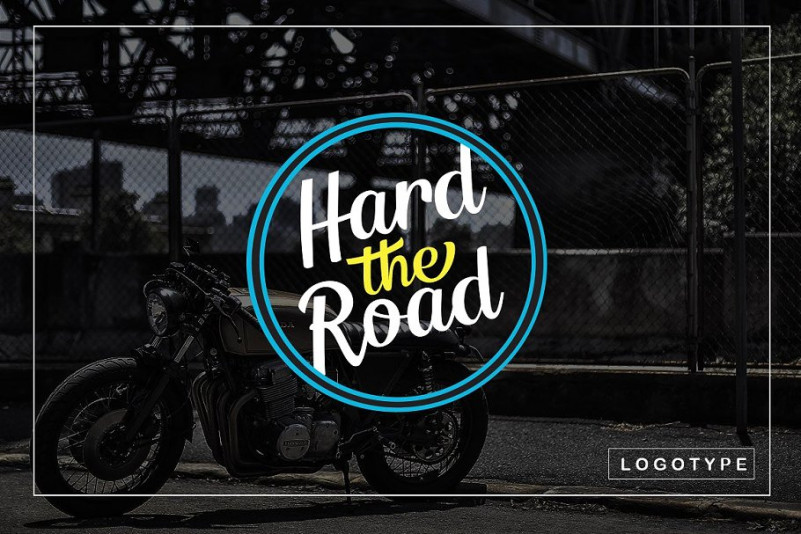
Kingsman Stylist Script Font
Hello world..!! A new bold script font. It’s fun to use because each word can be transformed to you like. Introducing Kingsman Script Font! Kingsman is Dual Style Font! Comes with alternate font and some ligatures. We keep this font looks elegant, readable, stylish, and catchy. The fonts are great for product logo,wedding card logo, clothing brand logo,Vintage design and much more.